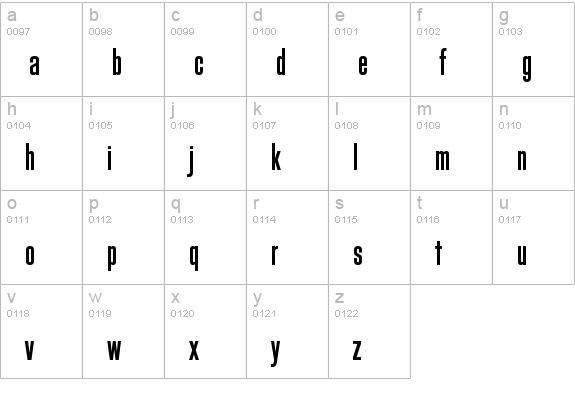
Block Gothic RR Demi Extra Condensed is a sub-bold, structured, condensed-width variant in the Block typeface family \xE2\x80\x94 well suited to sub-headlines and emphasised passages.
Block Gothic RR Demi Extra Condensed is a modern and sleek typeface that exudes sophistication and professionalism. Its bold lines and condensed proportions make it perfect for creating impactful headlines, signage, and branding materials. The font's geometric shapes and sharp edges give it a contemporary edge while maintaining a timeless elegance. What sets Block Gothic RR Demi Extra Condensed apart is its versatility - it can be used for a wide range of design projects, from editorial layouts to packaging designs. The font's strong presence on the page ensures that your message will be delivered with clarity and impact. Best of all, Block Gothic RR Demi Extra Condensed is available for free download at FontsMarket.com. This means that you can access this high-quality font without any cost, making it a valuable addition to your font library. Don't miss out on the opportunity to elevate your designs with the bold and stylish Block Gothic RR Demi Extra Condensed font today!